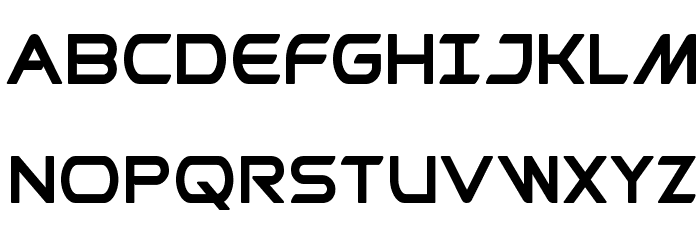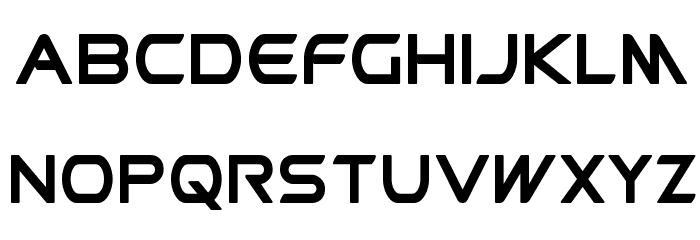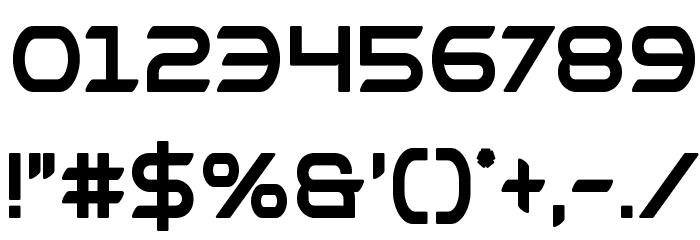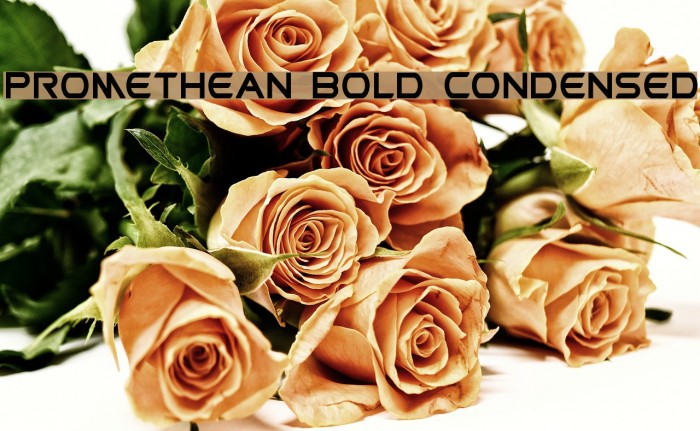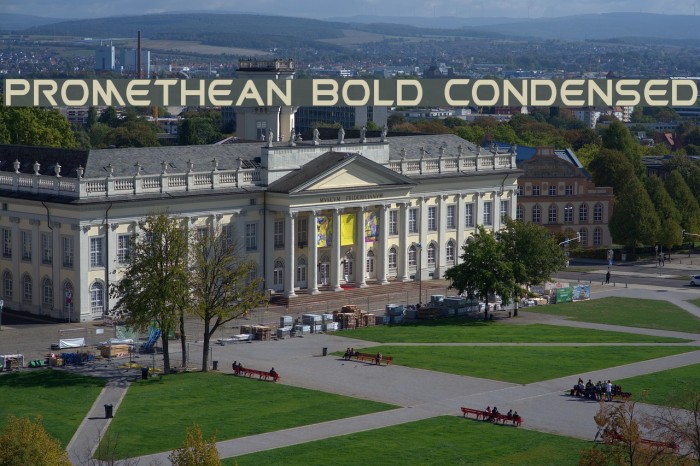
Promethean Bold Condensed Font
This font features a bold and condensed style with a modern and futuristic aesthetic. The characters are designed with sharp angles and clean lines, giving it a sleek and dynamic appearance. The uppercase letters are uniform in height, while the lowercase letters maintain a consistent baseline, enhancing readability. The numerals are distinct and align well with the overall geometric theme. Special characters are crafted to match the boldness and angularity of the alphabet, ensuring a cohesive look across all glyphs. This font's condensed nature allows for efficient use of space, making it ideal for headlines and titles where impact is essential.
A bold, condensed font with a modern, angular design.
- Proposed Projects: Ideal for technology branding, futuristic posters, and impactful headlines.